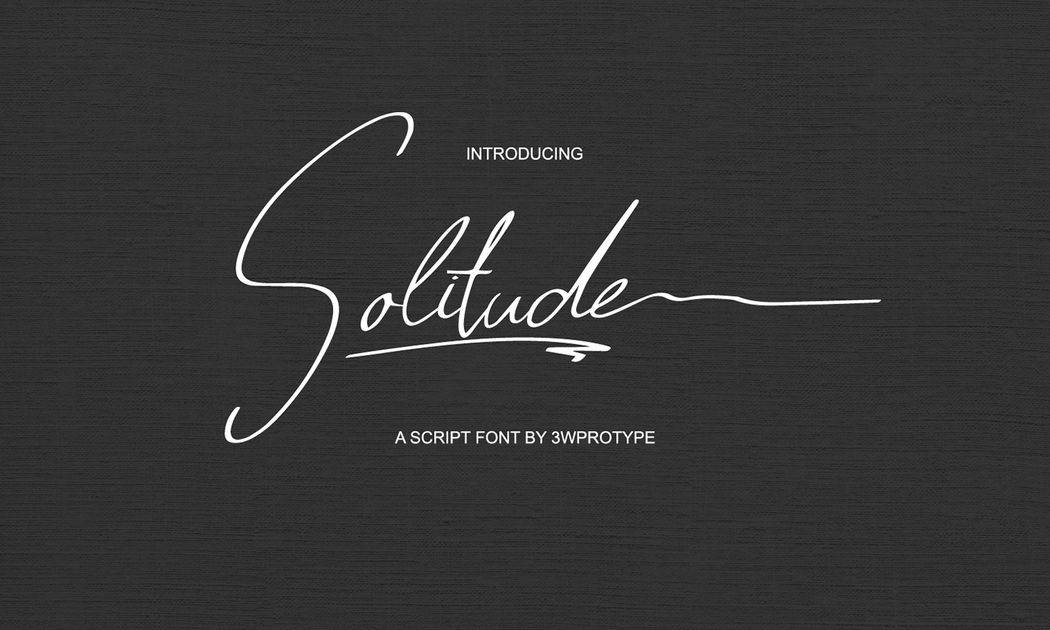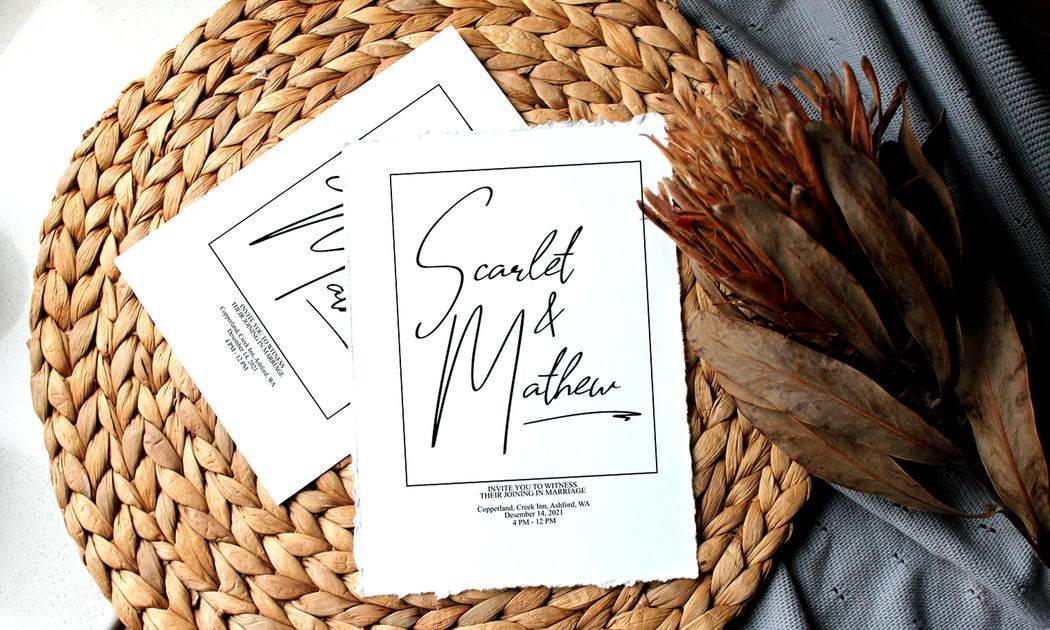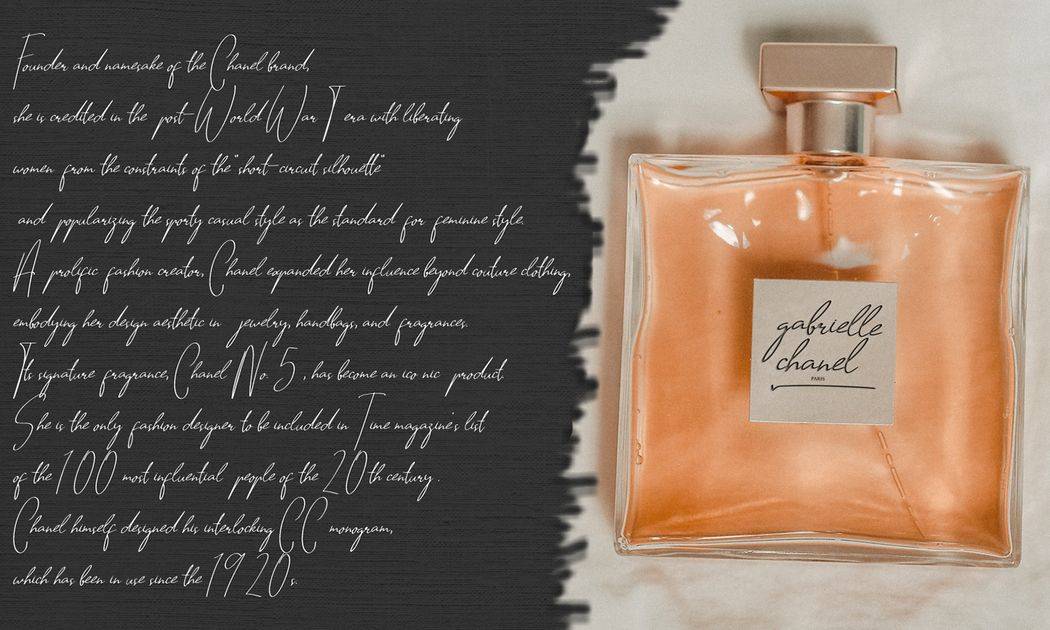
Solitude is a delicate, handwritten script font characterized by its thin, flowing strokes and elegant, elongated letterforms. It conveys a sense of sophistication and intimacy, making it ideal for personal branding, invitations, and any design that seeks a refined, artistic touch. This font works best in headlines and logos where a graceful, modern, and heartfelt style is desired.
Solitude Font
About Solitude Font
| Font family | Solitude Font |
| Designer | I Wayan Wisna Wijaya |